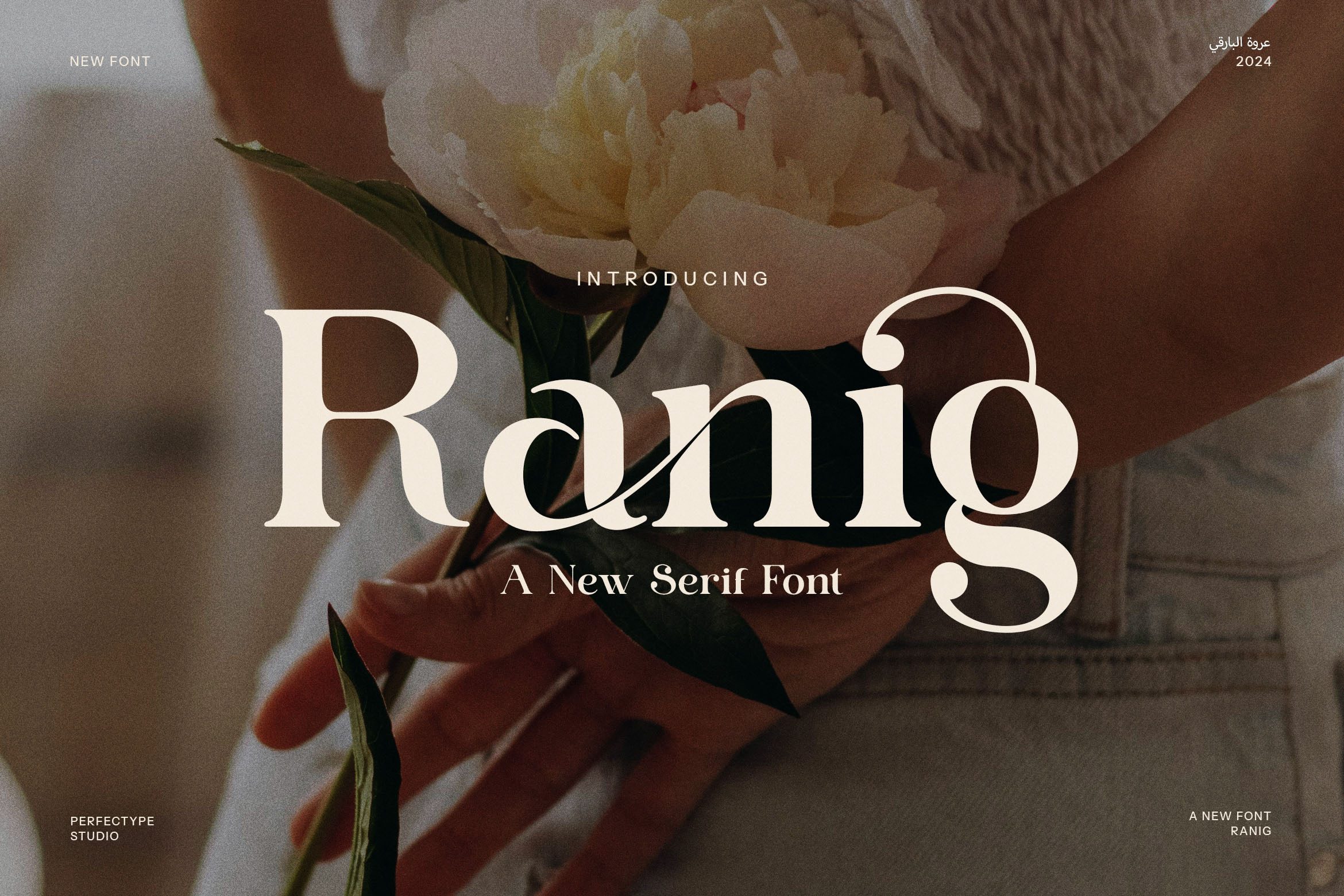
Ranig Modern Serif Font
Ranig Modern Serif Font is a sophisticated and stylish typeface that blends timeless elegance with contemporary design. With its sleek and well-defined serifs, this font exudes a sense of refinement and luxury, making it perfect for high-end branding, logo design, and premium marketing materials. Its unique character design gives it an artistic edge, while its readability and versatility ensure it works seamlessly across a wide range of applications.
Whether you're designing for fashion, lifestyle brands, or upscale websites, Ranig Modern Serif brings a touch of modernity without sacrificing classic appeal. Its versatility shines in both print and digital mediums, making it ideal for magazines, brochures, product packaging, and advertising campaigns. The font’s crisp lines and distinctive curves create an eye-catching effect, making it particularly effective for editorial layouts, restaurant menus, boutique signage, and even food and beverage branding.
What sets Ranig apart is its ability to maintain a balance between style and functionality. It works beautifully in large headings and display text, while still being legible in smaller sizes. Whether used for a logo, a website header, or a product label, the font's refined aesthetic adds a sense of exclusivity and professionalism to any project.
With Ranig Modern Serif Font, you can elevate your designs with a perfect blend of modern elegance and timeless sophistication, making it the ideal choice for brands looking to make a bold, lasting impression.